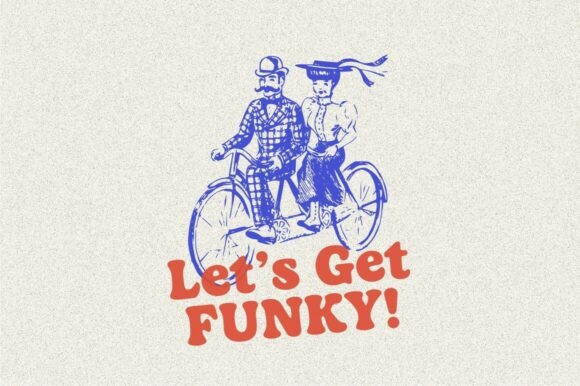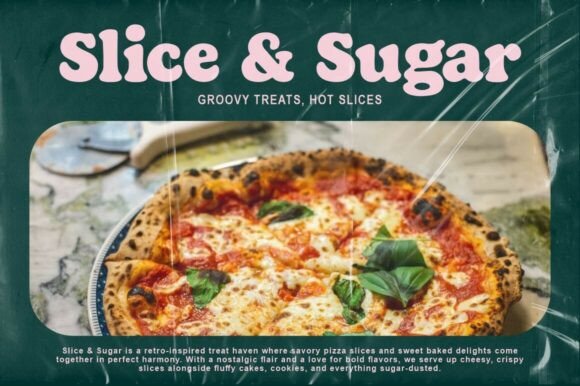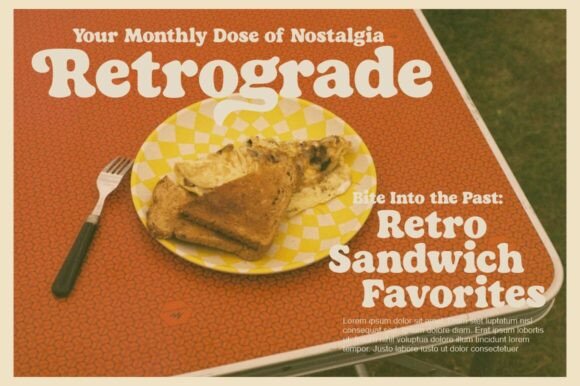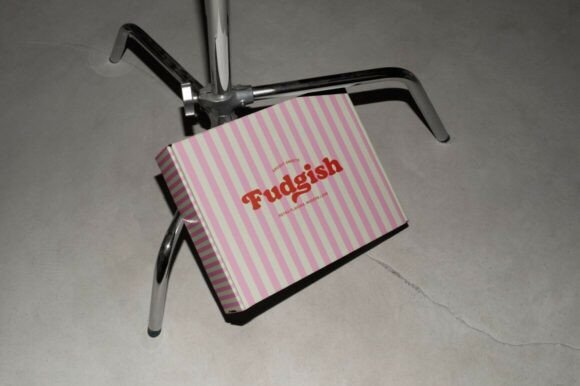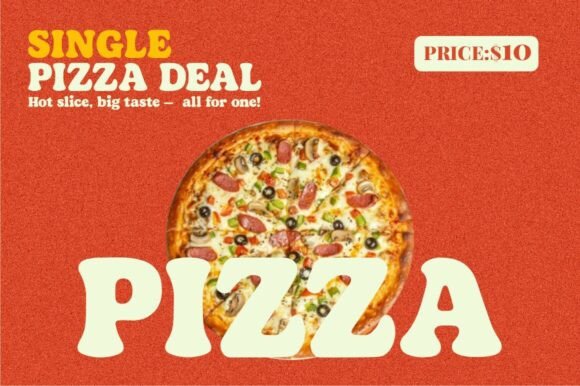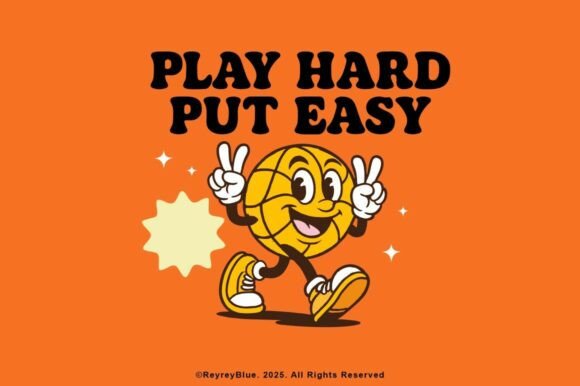
Introduction to Meyzie Font
Introducing Meyzie, a bold retro serif font that brings charm, fun, and groovy vibes into your design projects.
Inspired by vintage typography from the 60s and 70s, Meyzie features chunky letterforms with whimsical curves and a bold personality, perfect for capturing attention and evoking nostalgia Whether youโre designing for branding, packaging, posters, t-shirt graphics, or social media, Meyzie delivers a standout look with its unique blend of retro flair and modern fun.